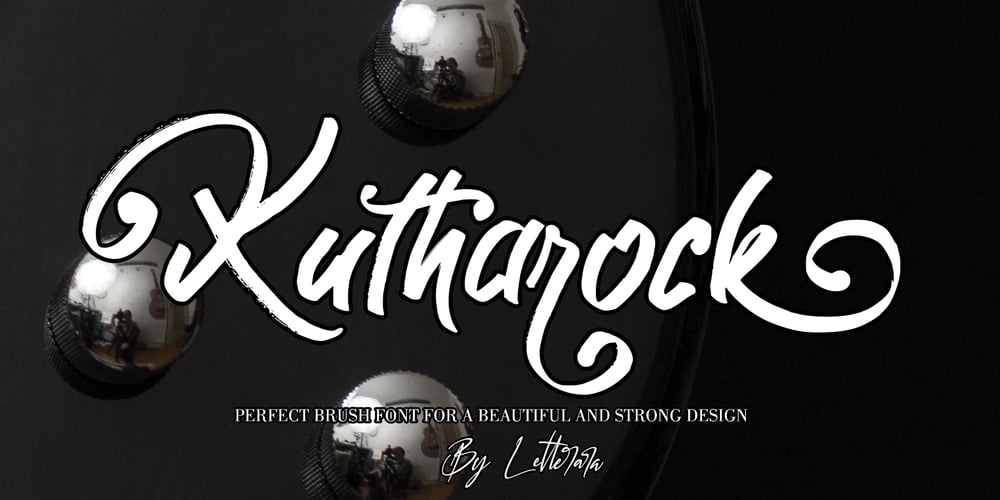
Kutharock Font Family was designed by Thomas Aradea and published by Letterara. Kutharock contains 1 styles and family package options. Kutharock is a textured brush font. It has a natural handmade look with an less regular baseline. Brush Stroke is suitable for title designs, invitations, books titles, stationery, quotes, branding and much more.